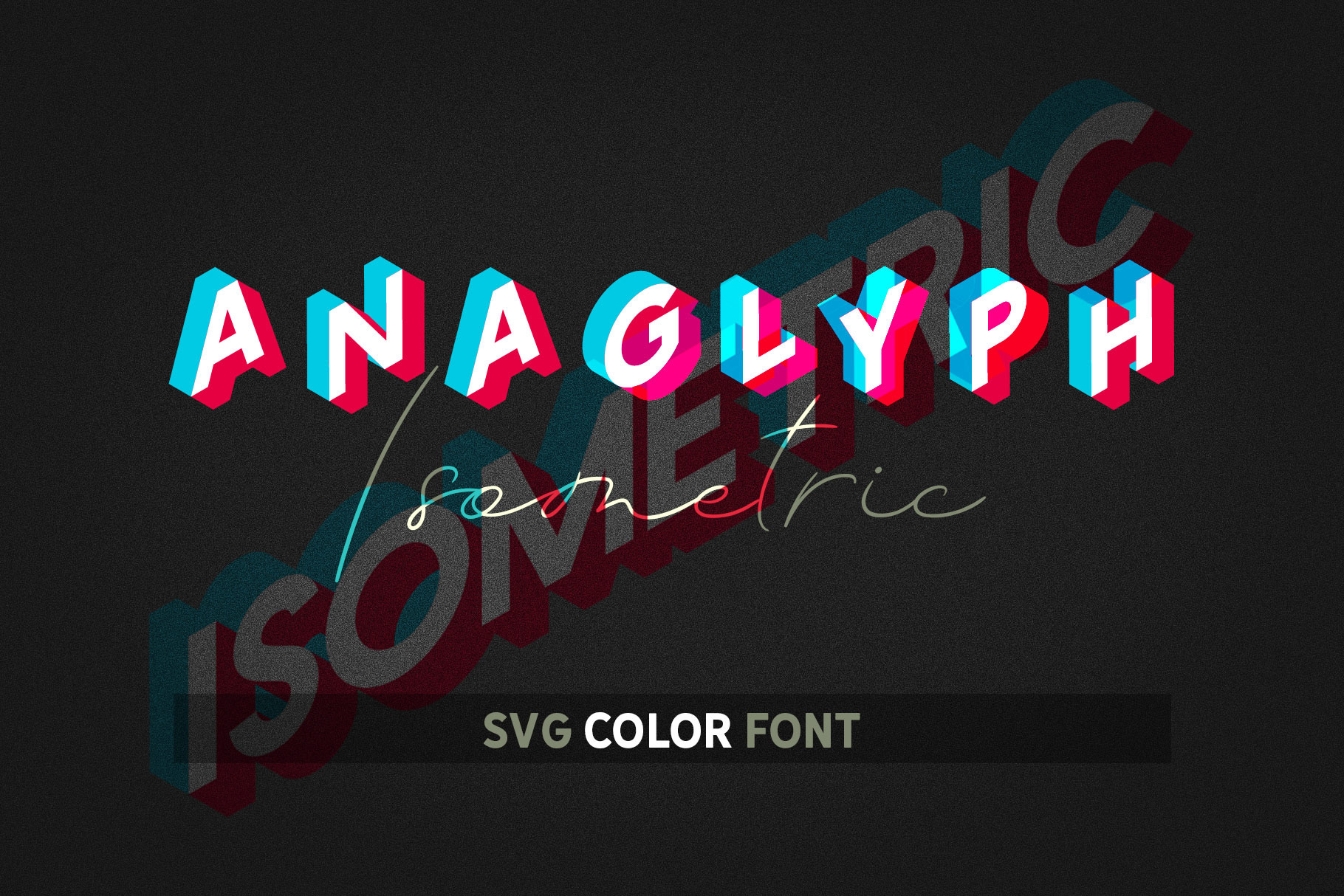
OpenType-SVG color vector font file a cool new type technology! A bit psychedelic, but a fresh and unusual font. Great for creating monograms, logos, posters, various fervent inscriptions! 100% vector and professional.